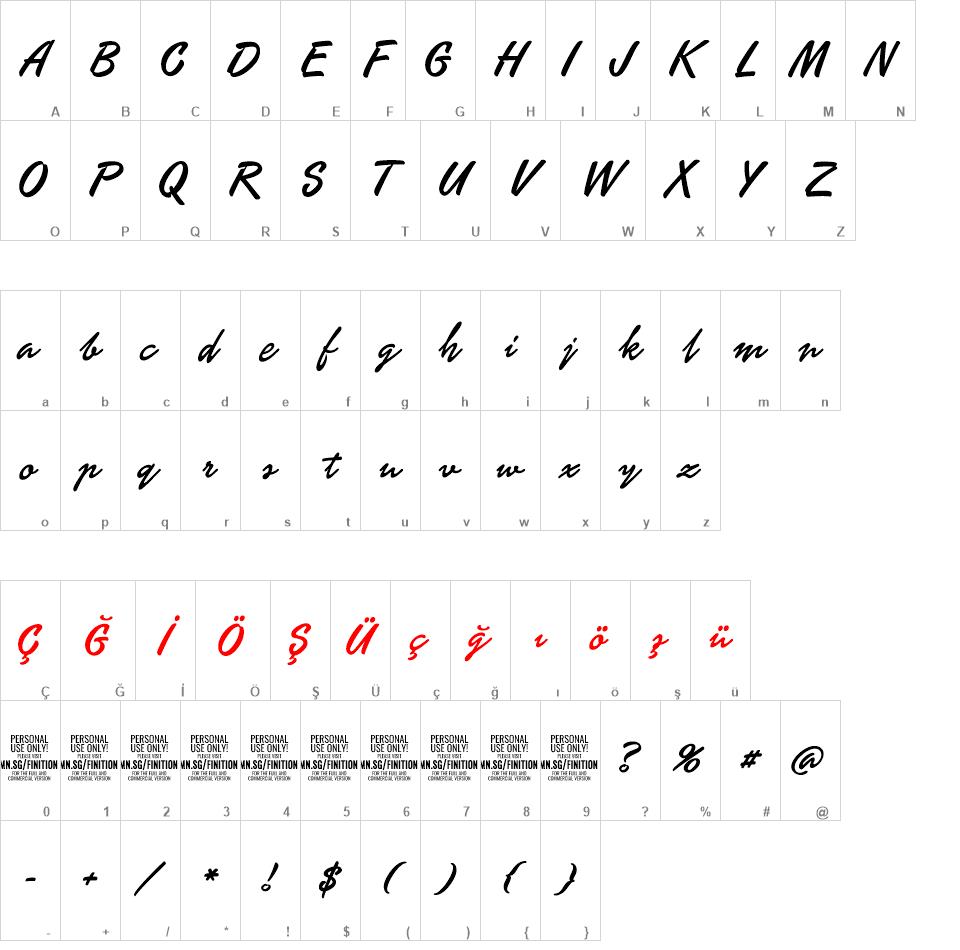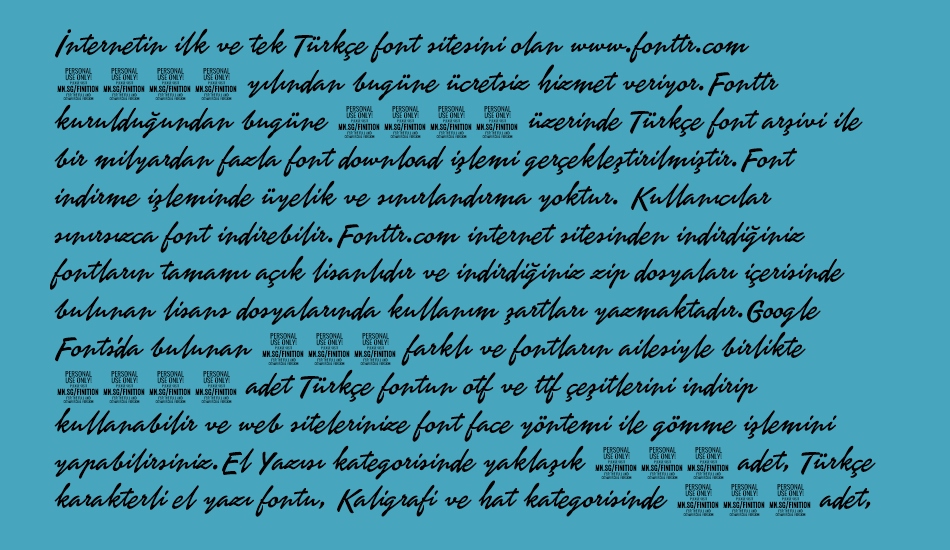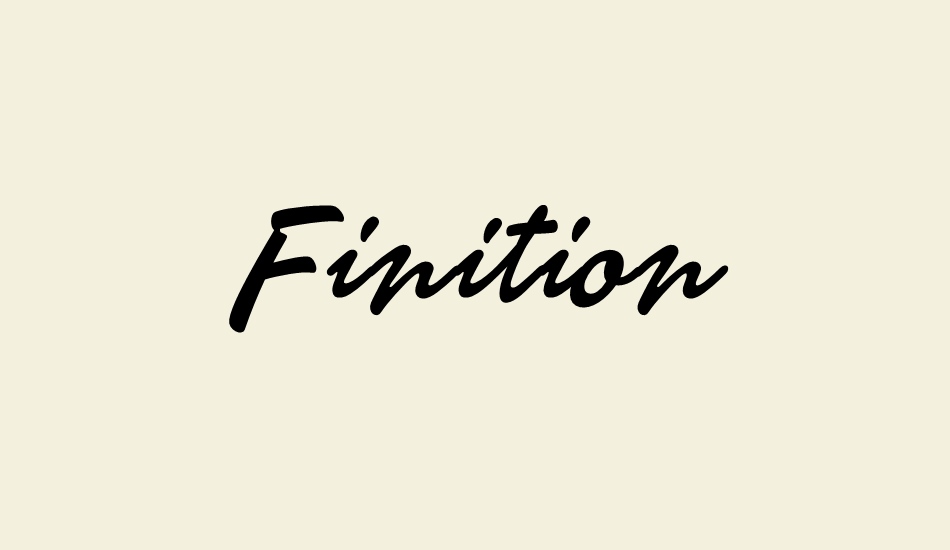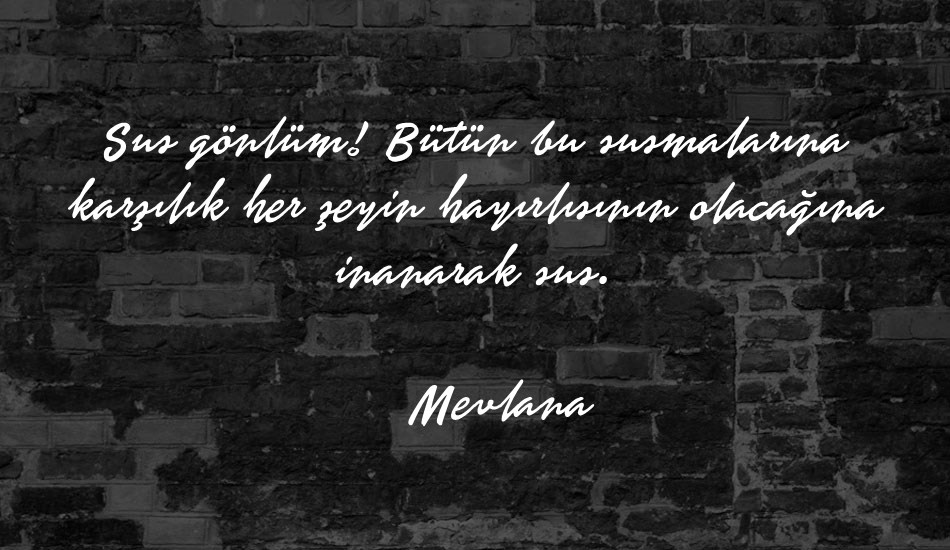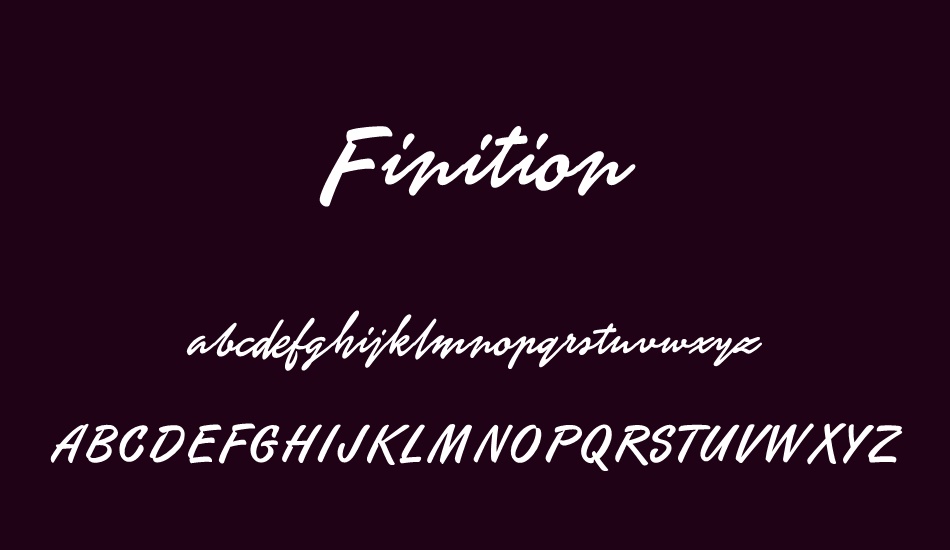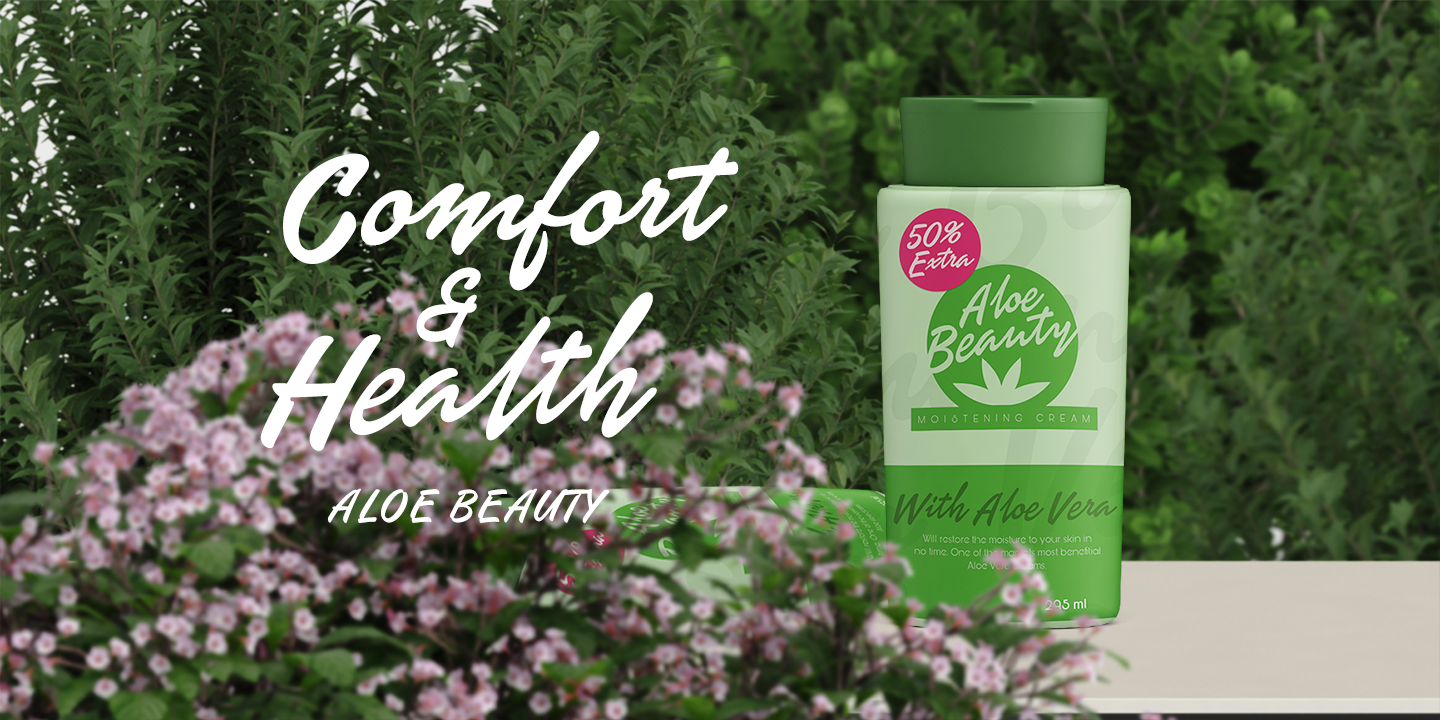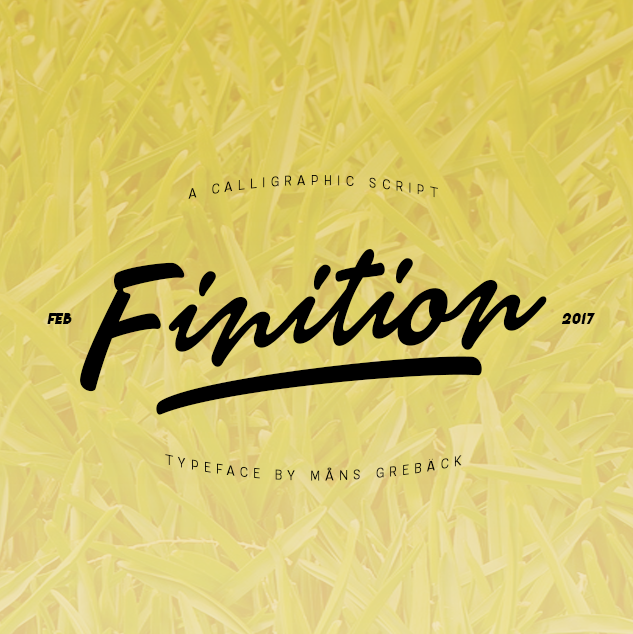
Finition is a calligraphic brush script.
Created by M?ns Greb?ck, this typeface is perfect to create a youthful logo.
With its hundreds of glyphs it supports a wide range of languages.
Use underscore to make an underline.
Example: Fin_ition
With ligatures activated, write multiple underscores for a longer line.
Example: Aut___omatic